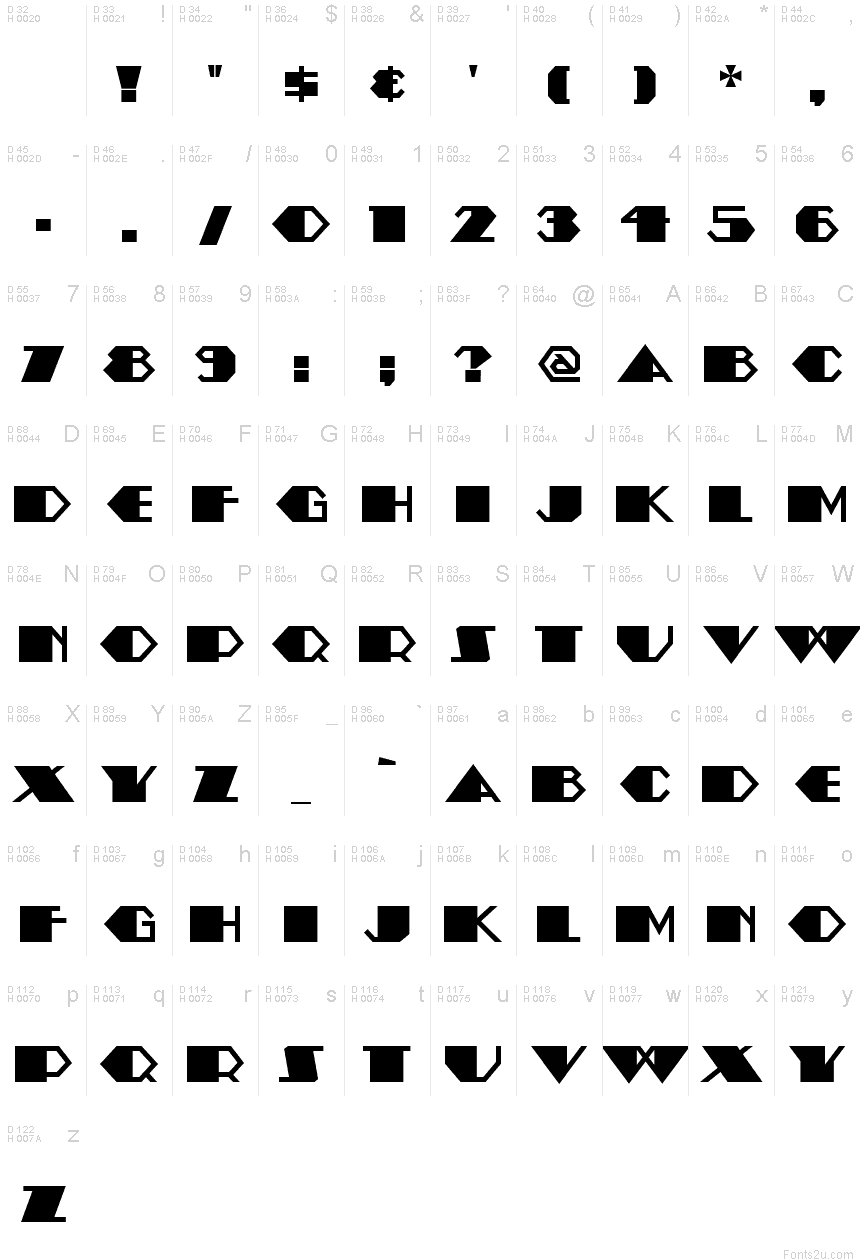
AmstelHeavyNF
Amstel Heavy NF font by Nick Curtis is a free retro display typeface that hits like a slab of cut metal. Its chunky, all-caps forms are carved into sharp angles and wedge-shaped counters, creating a bold stencil-like texture that feels both industrial and playful. The tight spacing pulls the letters into a solid, almost posterized band of black, giving titles an instant, high-impact presence that reads from a distance.
Using Amstel Heavy NF, you get a rhythmic, geometric headline style that shines on posters, album covers, event branding, packaging, bold logos, and statement signage. This free font works best at large sizes where its faceted shapes and negative-space cuts can really breathe. For body text or secondary info, pair it with a simple, neutral sans serif to keep the message clear while Amstel Heavy NF does the visual shouting.